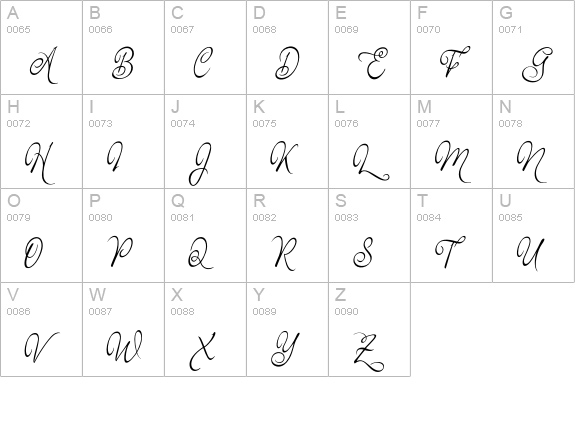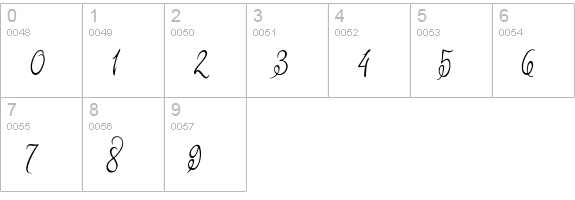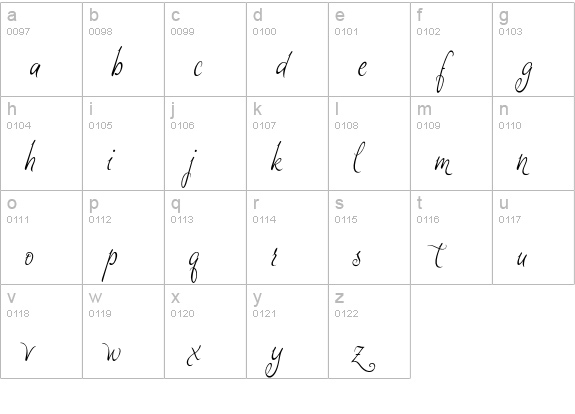
Monkuta Font Details
Monkuta font is a modern and elegant typeface that perfectly blends sophistication with creativity. With its clean lines and stylish curves, Monkuta font is sure to add a touch of class to any design project. This versatile font is ideal for a wide range of applications, from branding to editorial design. Best of all, Monkuta font is completely free to download at FontsMarket.com. So whether you're a professional designer looking to add a new font to your collection or a hobbyist looking to spruce up your projects, Monkuta font is the perfect choice. Download it today and elevate your designs with this stunning typeface.